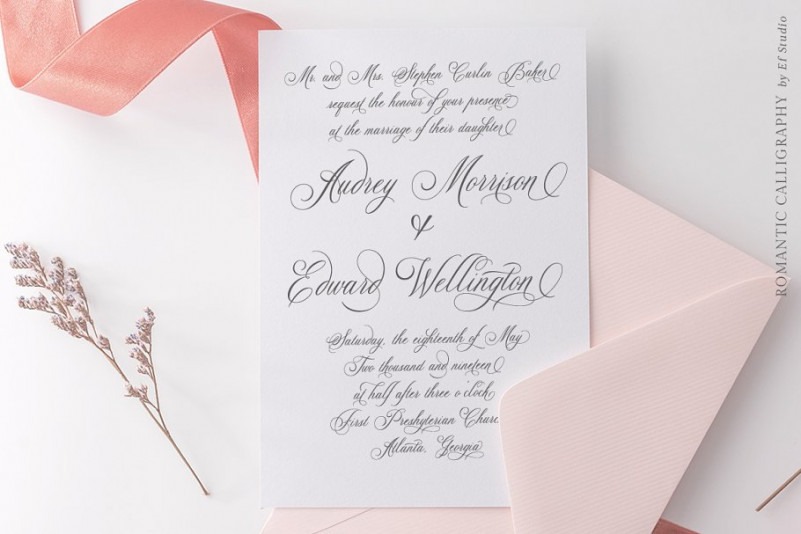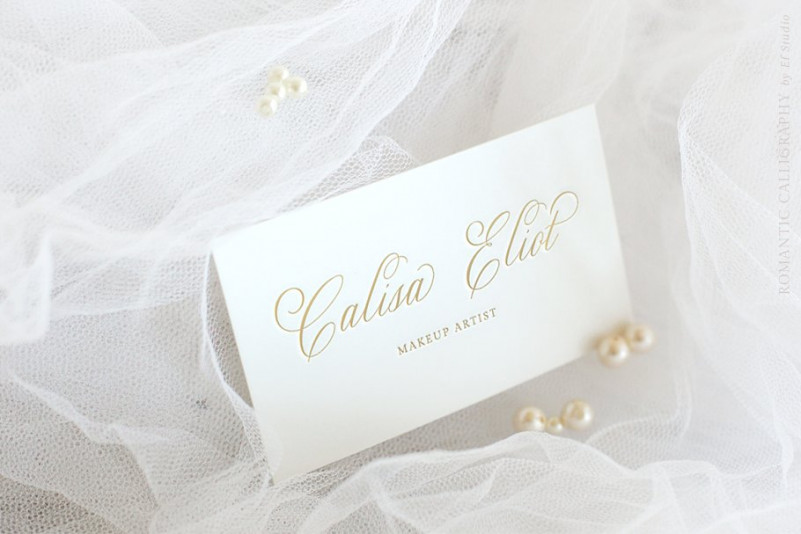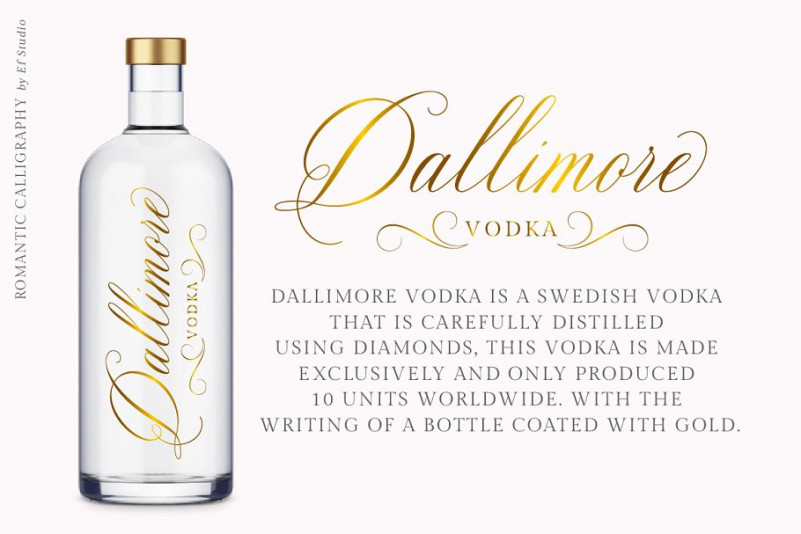
Glaston Calligraphy Font
Glaston Calligraphy Free Demo
Thank you for looking! This is a new romantic calligraphy typeface. This is another lovely modern calligraphy typefaces, which is combining the style of classic calligraphy with an modern style. Introducing Glaston Font. It is design and shared by Ef Studio. Glaston is perfect for red wine label, vodka label, upscale packaging, wedding stationery, invitations, business cards, branding and other projects that require a touch of handwriting and luxury.